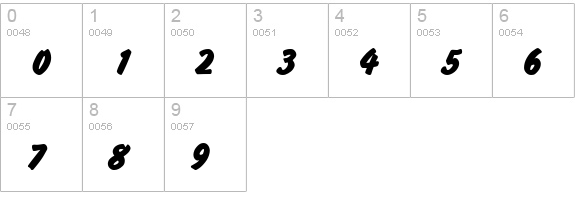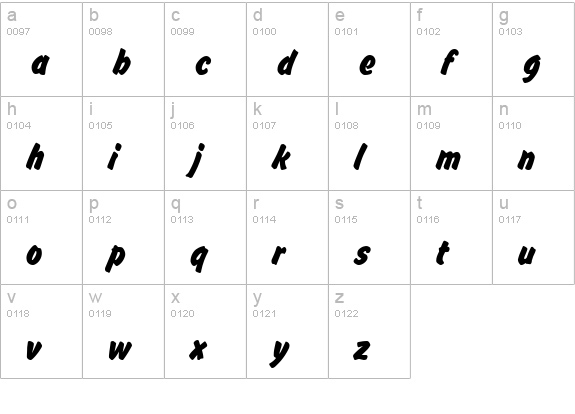
Impasto font is a stunning display typeface that exudes a sense of texture and depth, inspired by the technique of impasto painting. Its bold and expressive letterforms make a strong visual impact, perfect for headlines, logos, and other design projects that require a touch of drama. This unique font is available for free download exclusively at FontsMarket.com, making it accessible to designers and creatives looking to add a dynamic flair to their work. With its thick brush strokes and distinctive style, Impasto font is sure to make a bold statement in any design project. Get your hands on this eye-catching typeface today and elevate your designs to new heights.